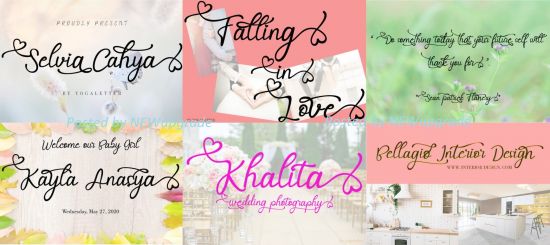
Selvia Cahya feels equally charming and elegant. It looks lovely on wedding invitations, thank you cards, quotes, greeting cards, logos, business cards and every other design which needs a handwritten touch.
This font is PUA encoded which means you can access all of the glyphs and swashes with ease! It features a varying baseline, smooth lines, gorgeous glyphs and stunning alternates.